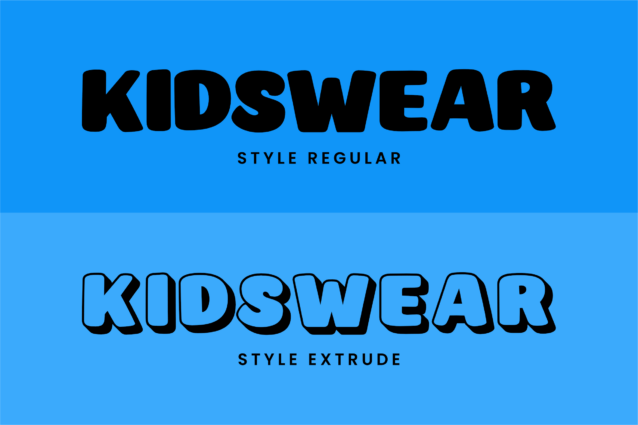
Cocoa Delight Display Font
Cocoa Delight Display Font is a playful and cheerful font designed especially for children’s projects. It radiates happiness and fun, making it perfect for kid-focused designs such as storybooks, toys, birthday invitations, and educational materials. With its friendly curves and bouncy letters, Cocoa Delight adds a touch of joy to any creative project.
This font comes in two delightful styles: Regular for a clean, vibrant look, and Extrude to give your text an extra pop with a bold, dimensional effect. Whether you’re crafting cute illustrations or designing playful layouts, Cocoa Delight brings a sense of wonder and excitement to your work